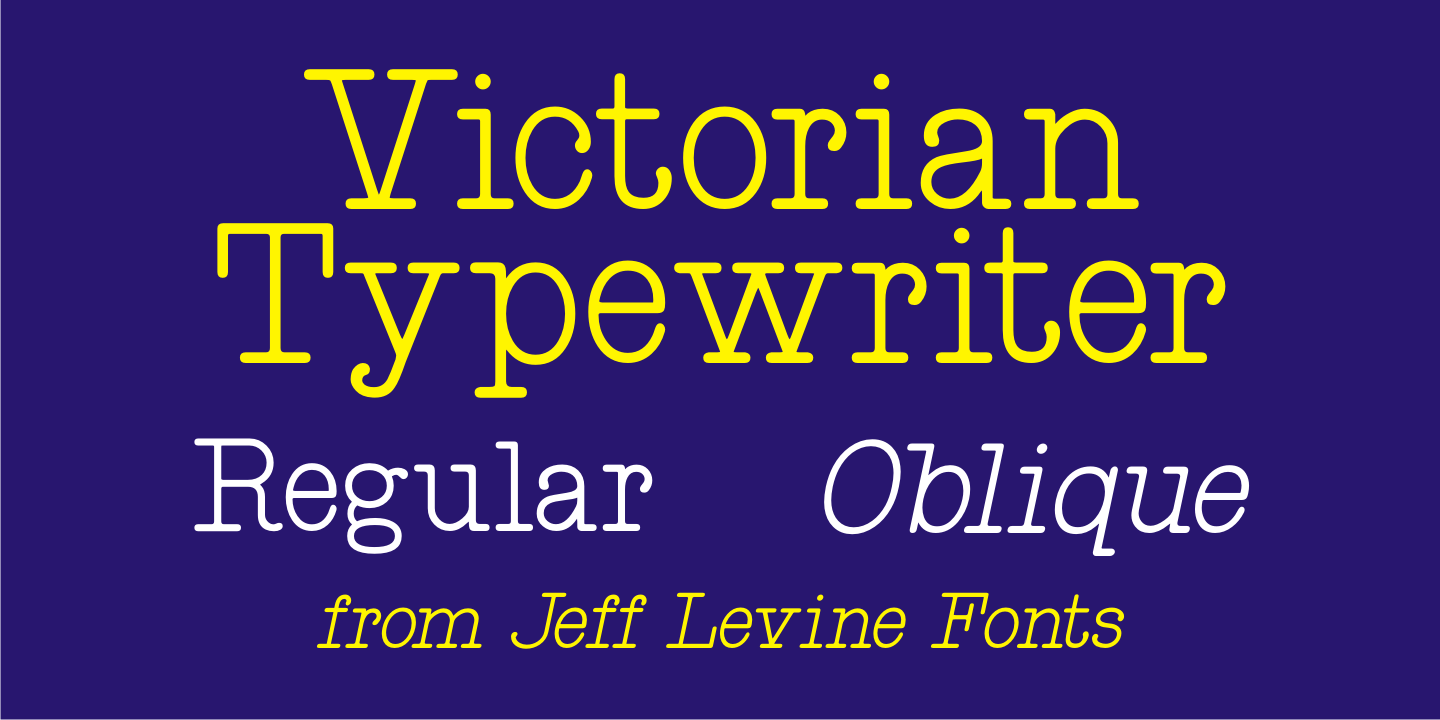
Victorian Typewriter JNL Free Download
Victorian Typewriter JNL Font Free Download
Victorian Typewriter JNL Font Free Download is a vintage-inspired typewriter font that perfectly captures the charm and mechanical elegance of the late 19th and early 20th centuries. Please note that you must purchase this font for commercial use. It is available as a free download for personal and testing use only.
You can use Victorian Typewriter JNL Font in historical book layouts, steampunk posters, antique-themed branding, escape room materials, retro postcards, movie props, or any design that needs an authentic old-school typewriter touch. It's especially ideal for adding a nostalgic feel to digital or print work that echoes the past.
What makes Victorian Typewriter JNL so exciting is its authentic, slightly imperfect keystroke style — each character looks as if it was typed on a real antique typewriter, giving your design a lived-in, analog warmth. It instantly adds personality and storytelling to everything it touches.
The Victorian Typewriter JNL Font family features classic styles like Victorian Typewriter JNL Regular, Victorian Typewriter JNL Bold, and Victorian Typewriter JNL Shadow, offering great versatility while staying true to its vintage roots.
Whether you're crafting a mystery novel cover, a themed café menu, or a nostalgic brand identity, Victorian Typewriter JNL Font Free Download is the perfect choice to bring authenticity and character into your design. Download it today and let the charm of the past enrich your creative present.